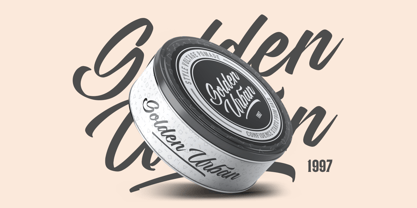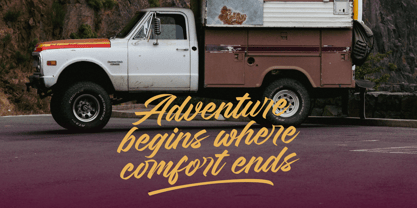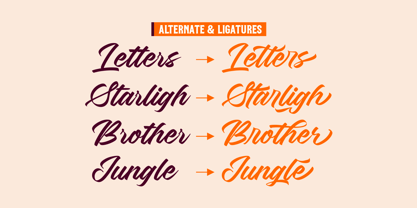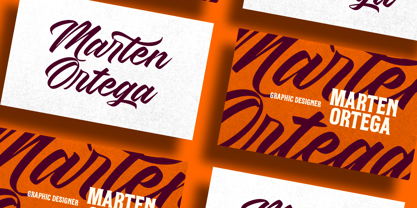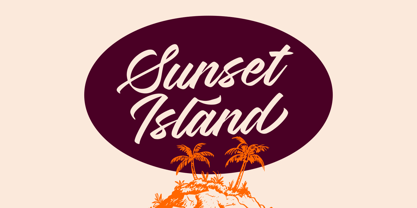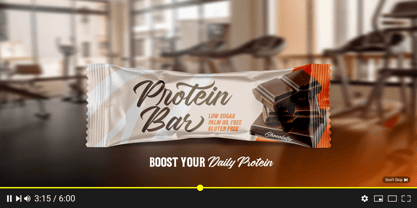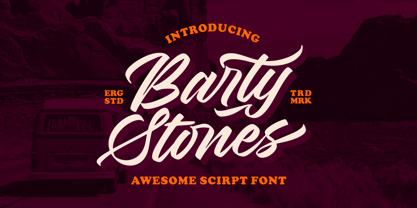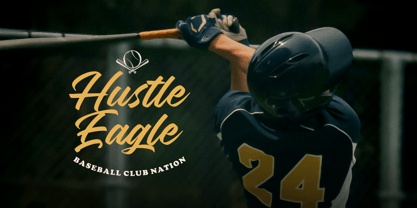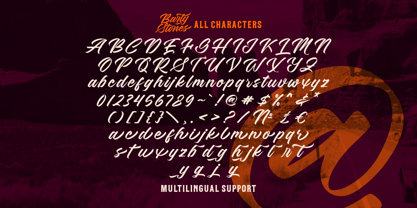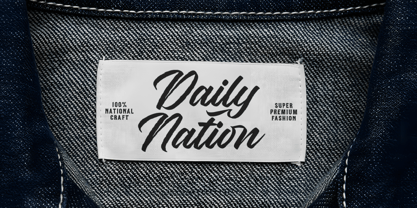
Barty Stones
by Ergibi Studio
The Barty Stones Font Family was designed by Riyadh Rahman and published by Ergibi Studio. Barty Stones contains 1 styles. More about this family
Barty Stones is a bold and expressive script font inspired by vintage road trips and retro signage. With its smooth curves, dynamic strokes, and confident letterforms, it delivers a strong visual presence that instantly grabs attention. Its handcrafted style blended with a modern touch makes it perfect for logos, branding, posters, packaging, and social media designs. The flowing connections and stylish swashes give your text a natural, lively rhythm, making every composition feel authentic and eye-catching. if you have any questions, don’t hesitate to contact us Ergibi Studio
Designers: Riyadh Rahman
Foundry: Ergibi Studio